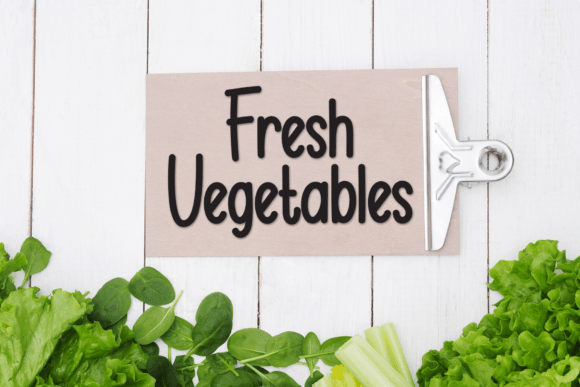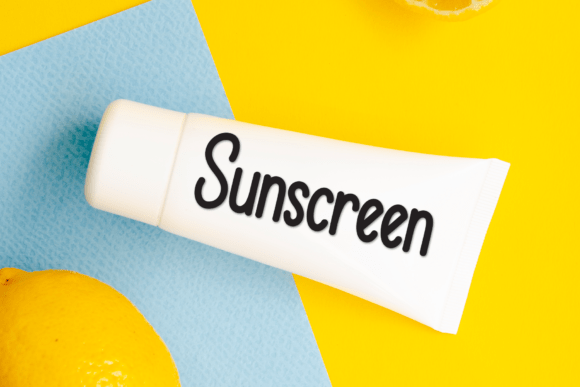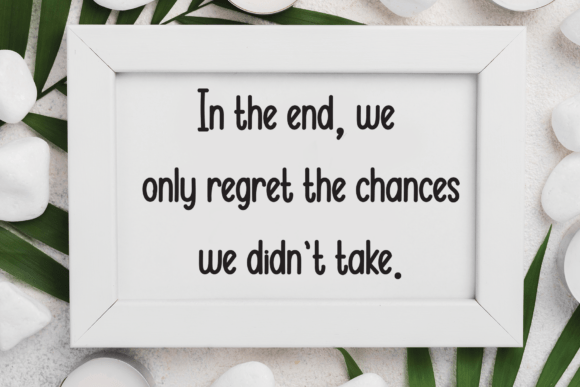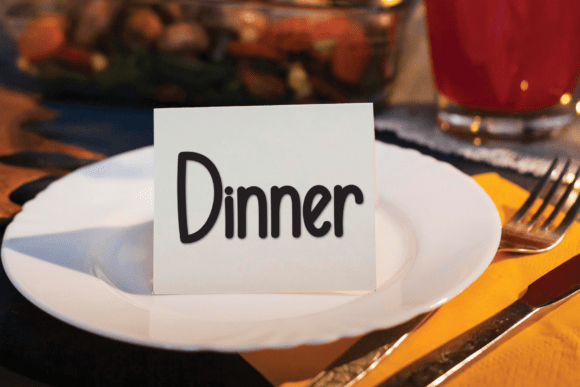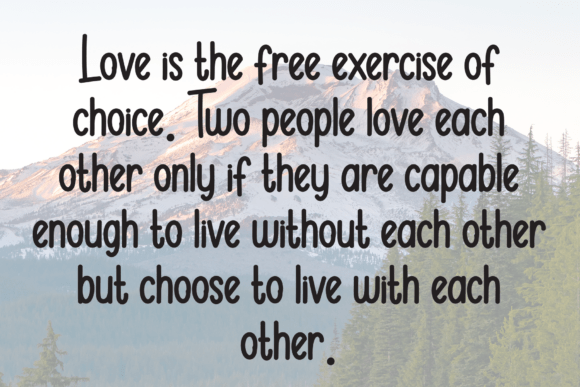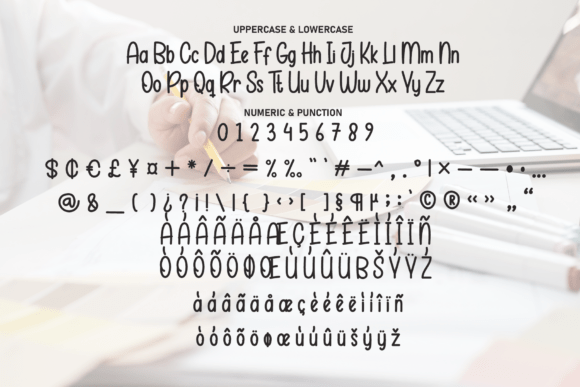
Meet the Font that Captivates Your Heart
Have you ever received a handwritten note or a beautifully crafted wedding invitation that made your heart skip a beat? Those personal touches can make all the difference in our lives, and now you can infuse that same magic into your creative projects with the Autography Font.
This delightful handwritten display font is designed to bring a smile to your face and a dash of friendliness to your designs. Whether you’re crafting wedding invitations, personalized cards, or any other project that needs a playful touch, Autography Font is the perfect companion. As a designer, you’ll appreciate its versatility and the ease with which it can elevate your work from ordinary to extraordinary.
Autography Font Key Features
- Font Family: Autography Font is a modern, script font designed for creative and elegant typography.
- Font Size: Offers a range of font sizes, from 8pt to 200pt, making it suitable for various design applications.
- Resolution: Designed to be scalable, Autography Font can be used at resolutions up to 300 DPI (dots per inch) for print and 72 DPI for digital applications.
- Unique Characteristics: Features a unique, hand-written style with subtle flair and movement, perfect for adding a touch of personality to designs.
- Font Pairing: Autography Font is designed to pair well with sans-serif fonts, making it an excellent choice for creating visually appealing typography.
Autography Font Review
As a designer, I was excited to dive into the Autography Font and see what it had to offer. Here’s my honest review.
- Unique aesthetic: Autography Font has a distinct, handwritten feel that’s perfect for creative projects.
- High-quality rendering: The font looks crisp and clear, even at smaller sizes.
- Extensive language support: Autography Font supports a wide range of languages, making it a great choice for global projects.
- Regular updates: The font’s developer is actively working on new features and bug fixes, ensuring the font stays up-to-date and reliable.
- Limited font sizes: Autography Font may not be the best choice for very large or very small font sizes, as it can become difficult to read.
- May not be suitable for formal projects: The font’s informal, handwritten feel may not be suitable for formal or professional projects.
- No bold or italic variants: While the font has a bold version, it’s not as extensive as some other fonts, and there are no italic variants.
Overall, I think Autography Font is a solid choice for creative projects that need a unique, handwritten feel. While it may have some limitations, it’s well-designed and high-quality. If you’re looking for a font that’s a bit more informal and playful, Autography Font is definitely worth considering.
Autography Font is commonly used for creative and artistic projects, such as invitations, posters, and social media graphics. To get the most out of it, try experimenting with different font sizes and styles to create a unique and eye-catching design.
Alternatives to Autography Font
Great Vibes is a beautiful, elegant script font that is perfect for titles, headings, and other design elements where a touch of sophistication is required. It’s ideal for wedding invitations, menus, and other creative projects where a high-end feel is desired.
Compared to Autography Font, Great Vibes has a more refined and polished look, making it suitable for high-end designs. However, Autography Font has a more playful and whimsical feel, making it better suited for more casual projects.
Pacifico is a modern script font that is perfect for designs that need a touch of elegance and sophistication. It’s ideal for titles, headings, and other design elements where a clean and minimalist look is desired.
Compared to Autography Font, Pacifico has a more straightforward and simple design, making it better suited for modern and minimalist designs. However, Autography Font has a more ornate and decorative feel, making it better suited for more traditional and vintage-inspired projects.